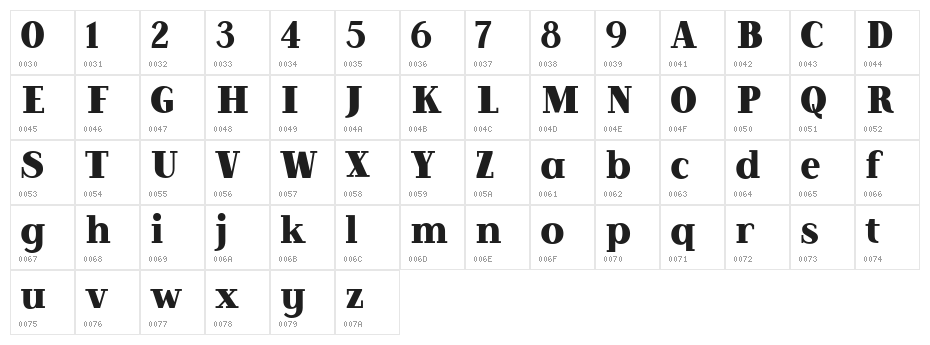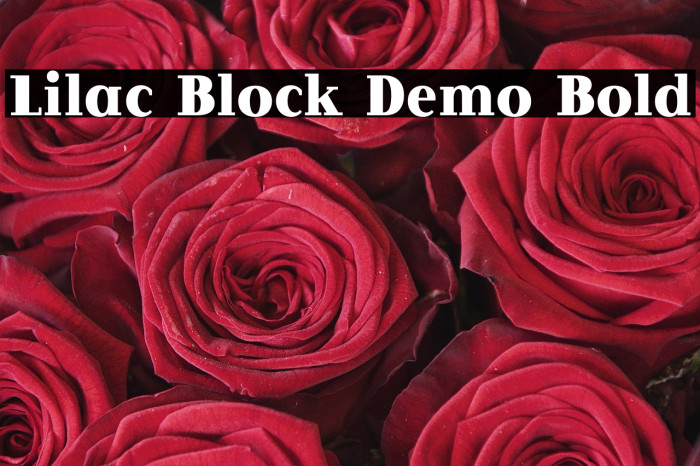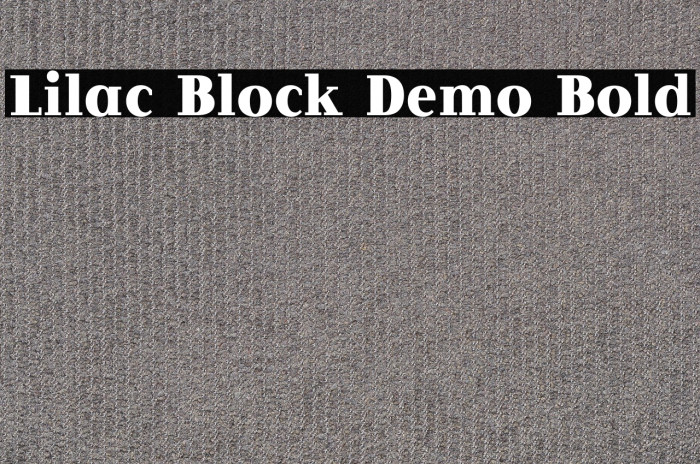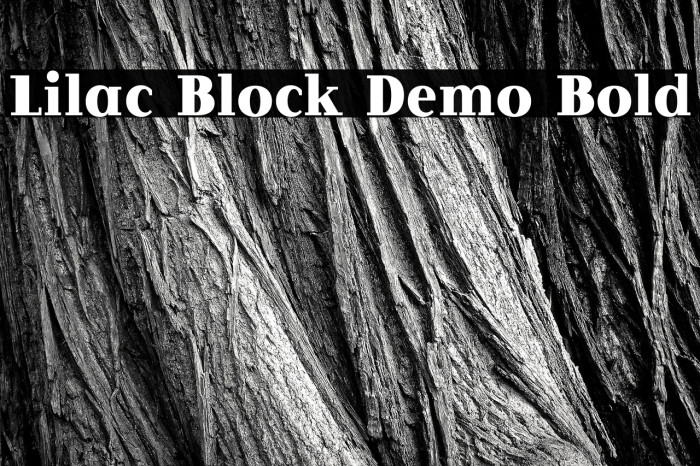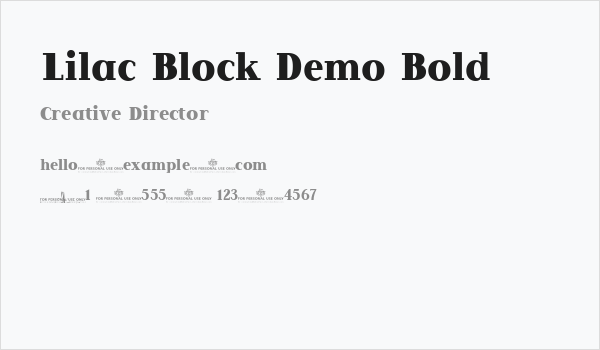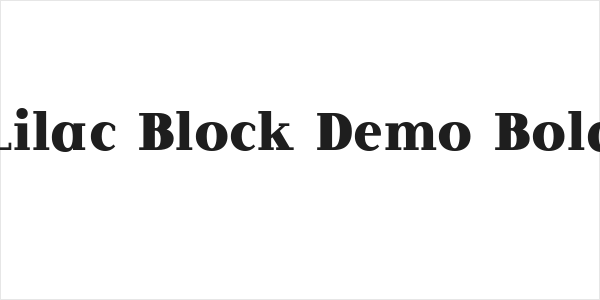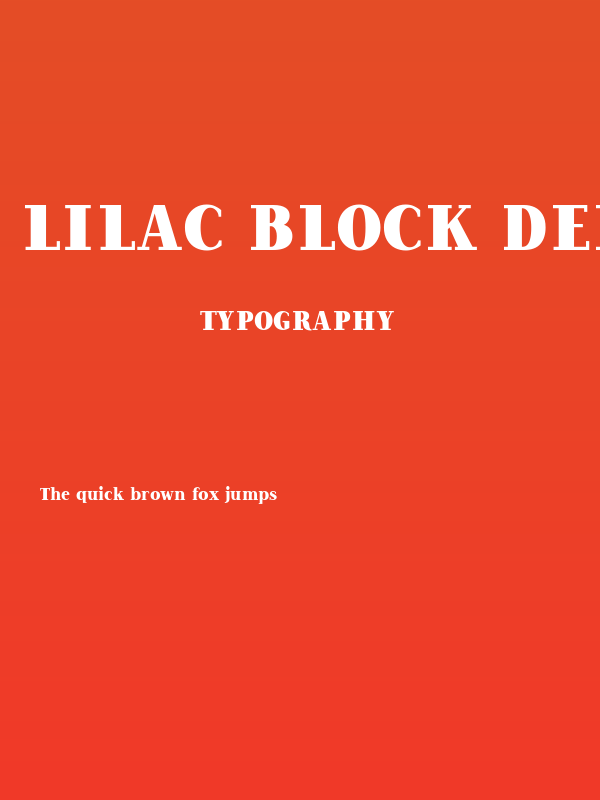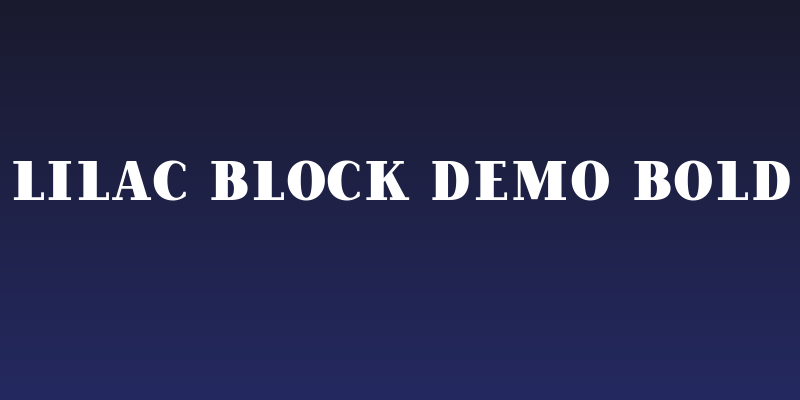
Lilac Block Demo Bold Font
Lilac Block Demo Bold Description
This font features a bold and commanding presence with strong, thick strokes that convey a sense of authority and confidence. The serifs are pronounced, adding a touch of classic elegance to the overall design. The uppercase letters are particularly striking, with a uniform height that ensures readability and impact. The lowercase letters maintain a consistent style, complementing the uppercase with slightly rounded edges that soften the overall appearance. The numerals are clear and robust, making them suitable for various applications. The special characters are well-integrated, maintaining the font's cohesive look.
| Proposed Projects | Ideal for headlines, branding, posters, and any project requiring a bold statement. |